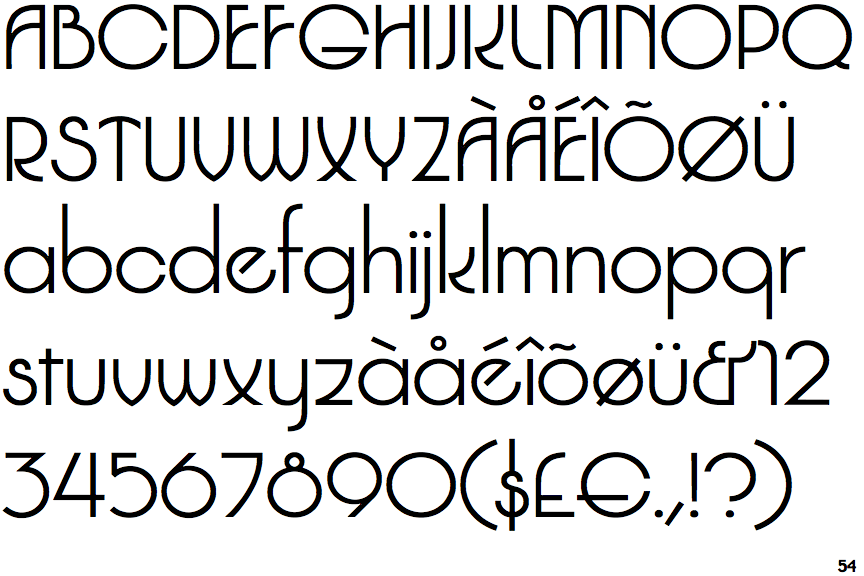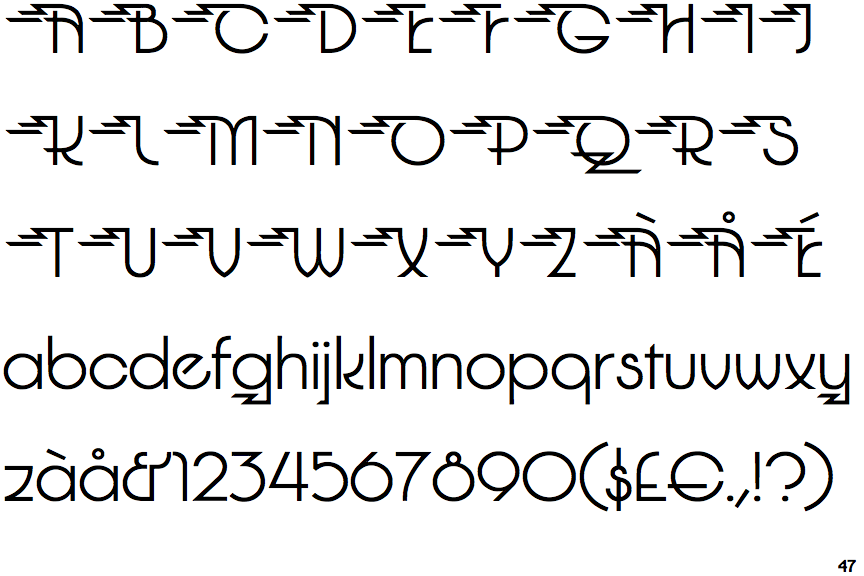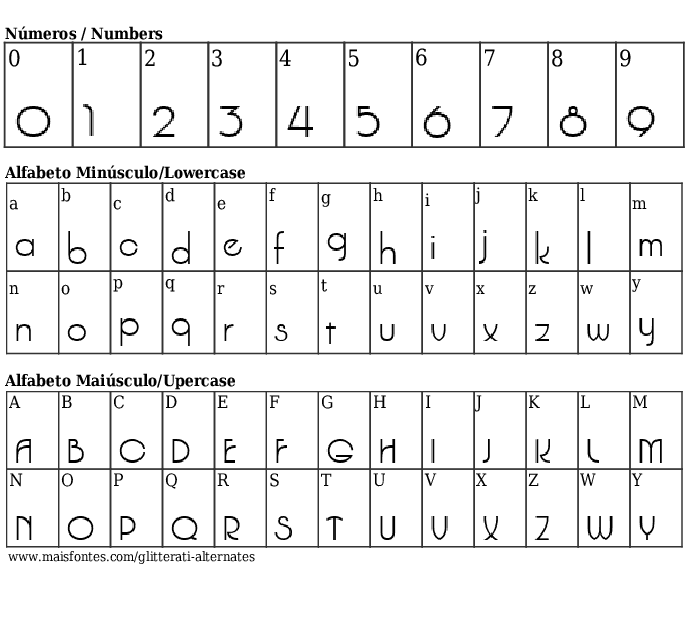
Glitterati Font . This font contains alternative versions that enable customisation of headlines and are. glitterati font family series mainly provide regular and other font styles. This font contains alternative versions that enable. glitterati is disko 2005. Includes 2 font styles from $69. The font subfamily is regular. glitterati alternates is the perfect font for all your fun designs. This font contains alternative versions that enable customisation of headlines and are. The font family is glitterati. Glitterati regular by what font is upgrade pro. what is the glitterati font? Font family font family designer foundry sample. glitterati by rian hughes: Download—the font meta search engine with more than 50,000 font styles to find and order.
glitterati is disko 2005. Glitterati regular by what font is upgrade pro. Download—the font meta search engine with more than 50,000 font styles to find and order. glitterati alternates is the perfect font for all your fun designs. Includes 2 font styles from $69. Font family font family designer foundry sample. This font contains alternative versions that enable customisation of headlines and are. glitterati font family series mainly provide regular and other font styles. The font family is glitterati. This font contains alternative versions that enable.
Glitterati Font glitterati alternates is the perfect font for all your fun designs. This font contains alternative versions that enable customisation of headlines and are. glitterati font family series mainly provide regular and other font styles. Download—the font meta search engine with more than 50,000 font styles to find and order. Font family font family designer foundry sample. glitterati by rian hughes: This font contains alternative versions that enable customisation of headlines and are. what is the glitterati font? The font family is glitterati. glitterati alternates is the perfect font for all your fun designs. Includes 2 font styles from $69. This font contains alternative versions that enable. glitterati is disko 2005. Glitterati regular by what font is upgrade pro. The font subfamily is regular.
Download free Glitterati Regular font glitteratialternates.ttf Glitterati Font glitterati by rian hughes: This font contains alternative versions that enable customisation of headlines and are. Font family font family designer foundry sample. Download—the font meta search engine with more than 50,000 font styles to find and order. glitterati alternates is the perfect font for all your fun designs. The font subfamily is regular. The font family is. Glitterati Font.
efecto de fuente editable rosa caramelo 699109 Vector en Vecteezy Glitterati Font Download—the font meta search engine with more than 50,000 font styles to find and order. glitterati alternates is the perfect font for all your fun designs. This font contains alternative versions that enable customisation of headlines and are. what is the glitterati font? Includes 2 font styles from $69. Glitterati regular by what font is upgrade pro. . Glitterati Font.
Glitterati Regular Download For Free, View Sample Text, Rating And Glitterati Font glitterati is disko 2005. The font family is glitterati. Glitterati regular by what font is upgrade pro. glitterati font family series mainly provide regular and other font styles. what is the glitterati font? Font family font family designer foundry sample. glitterati by rian hughes: glitterati alternates is the perfect font for all your fun designs.. Glitterati Font.
Identifont Glitterati Flash Glitterati Font Font family font family designer foundry sample. Includes 2 font styles from $69. Download—the font meta search engine with more than 50,000 font styles to find and order. This font contains alternative versions that enable customisation of headlines and are. This font contains alternative versions that enable customisation of headlines and are. glitterati alternates is the perfect font for. Glitterati Font.